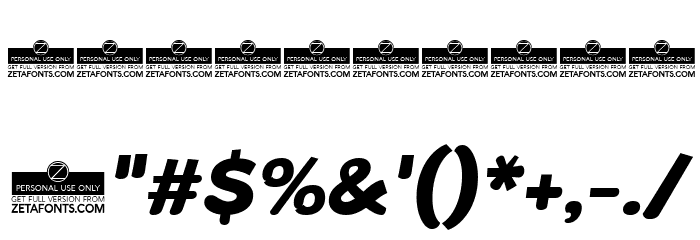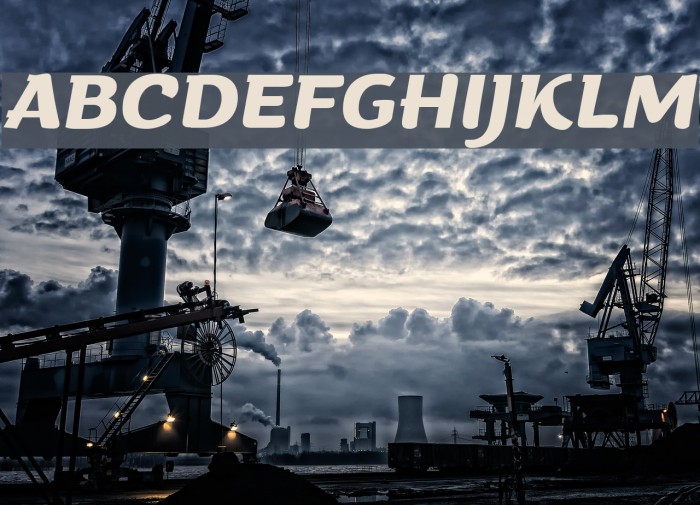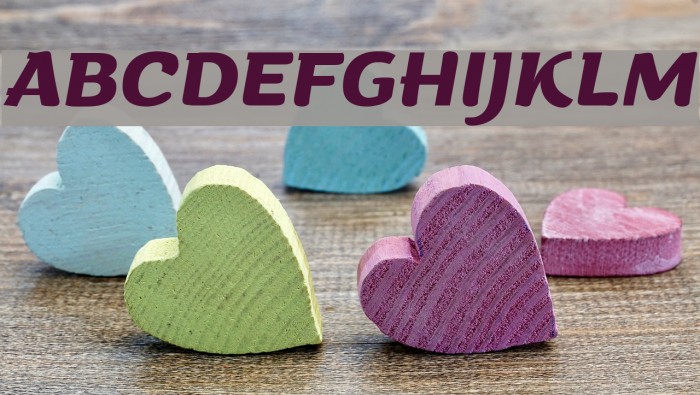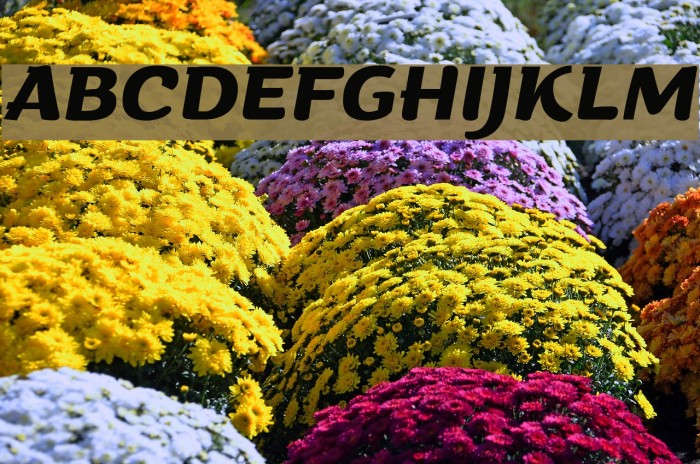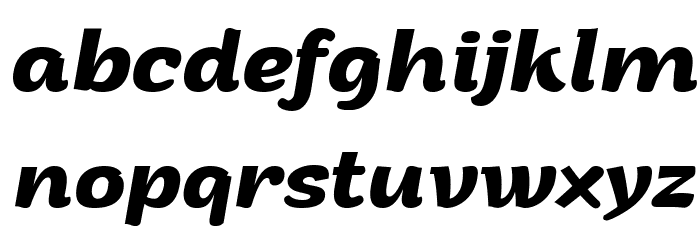
Arturo Trial Bold Italic Font
Arturo Trial Bold Italic Description
This font features a bold and italic style, characterized by its dynamic and flowing letterforms. The uppercase letters are robust and slightly slanted, giving a sense of movement and energy. The lowercase letters maintain a consistent style, with smooth curves and a slight inclination that enhances readability. The numerals are well-proportioned and align seamlessly with the overall design. Special characters are distinct and integrate well with the alphabetic characters, ensuring versatility in various contexts. The font's boldness and italic nature make it suitable for attention-grabbing headlines and impactful designs.
A bold, italic font with dynamic and flowing letterforms, ideal for impactful designs from Uncategorized fonts.
- Proposed Projects: This font is perfect for branding projects, advertising campaigns, and editorial design where a strong and stylish presence is needed.
- Use Case: Headlines, Logos, Advertising